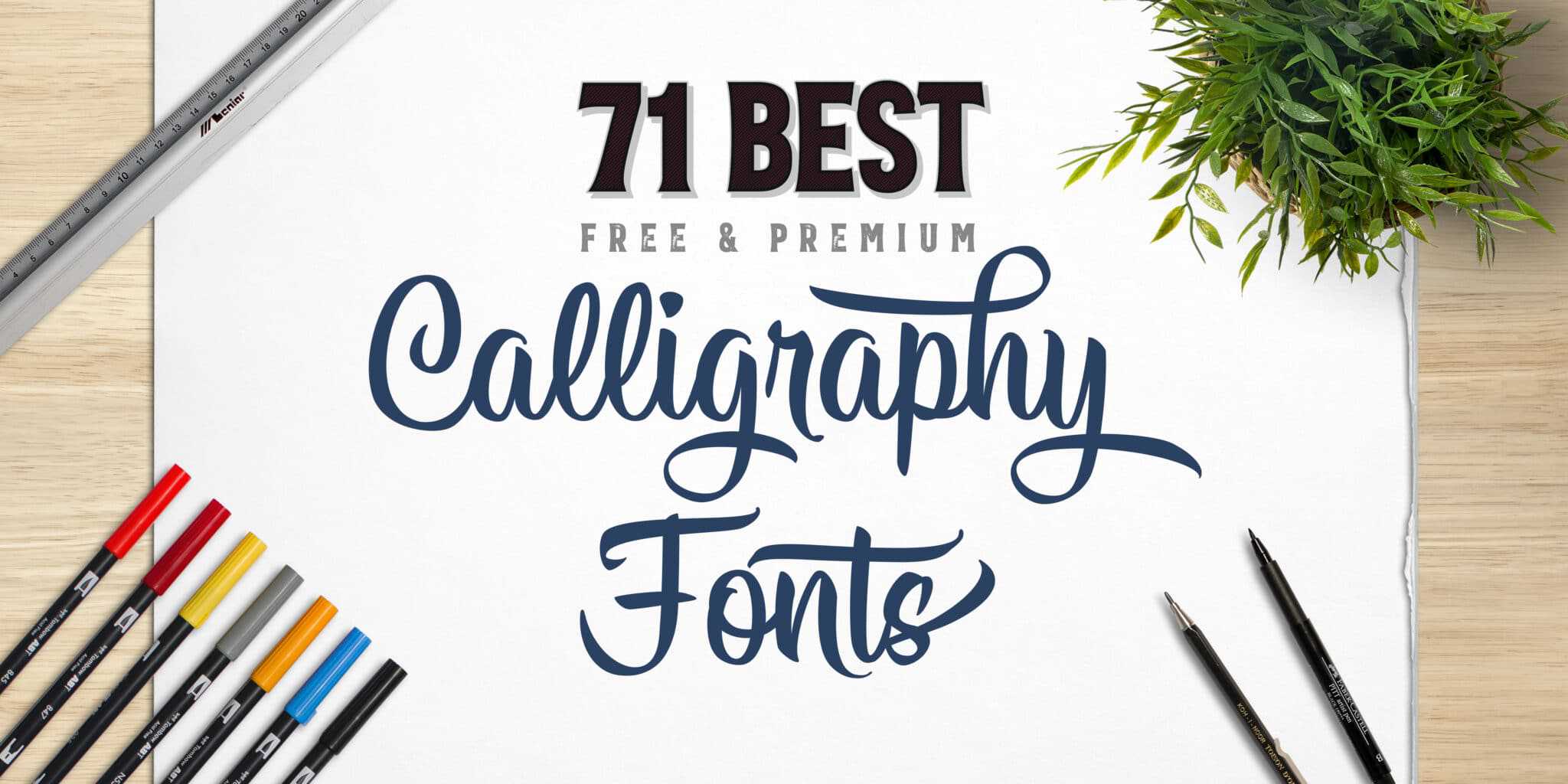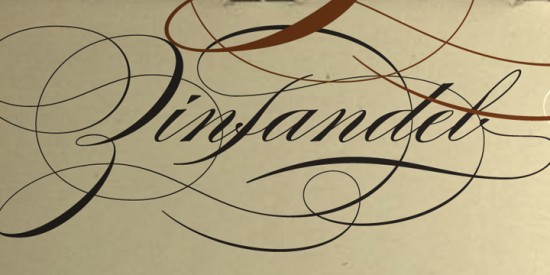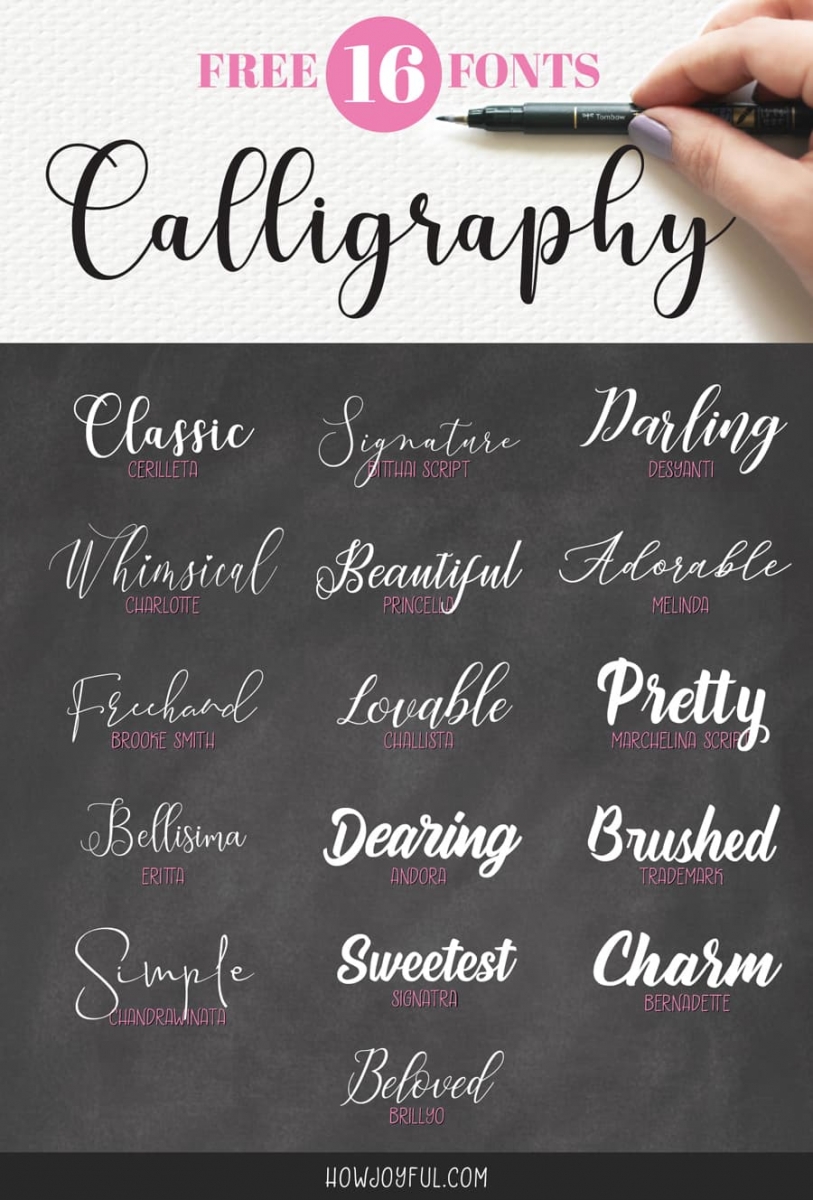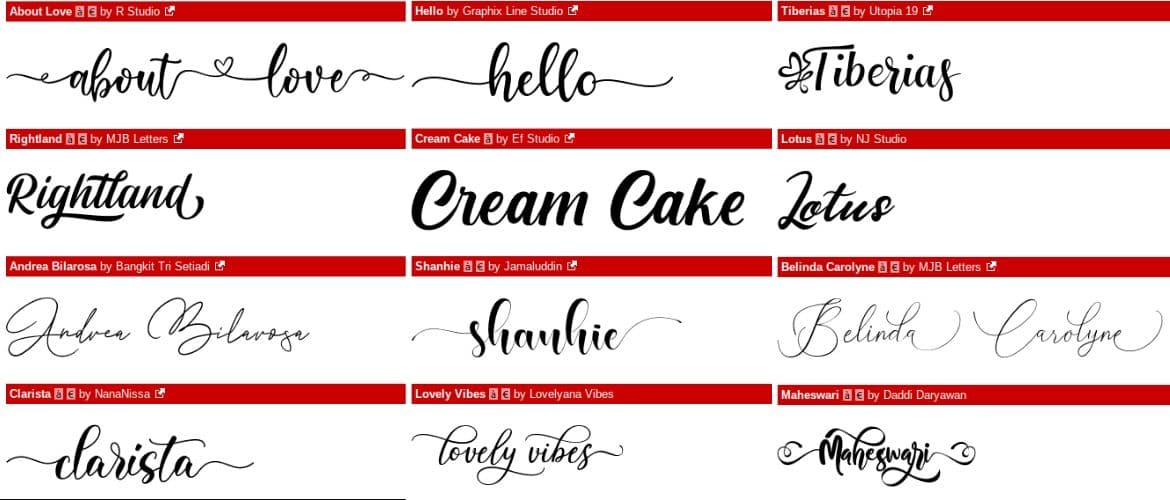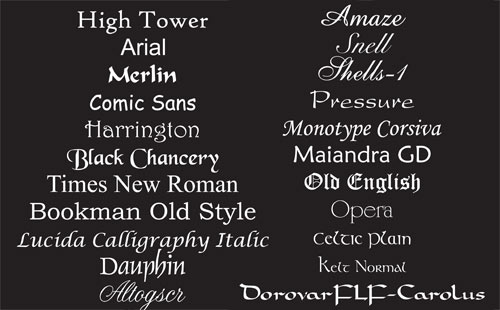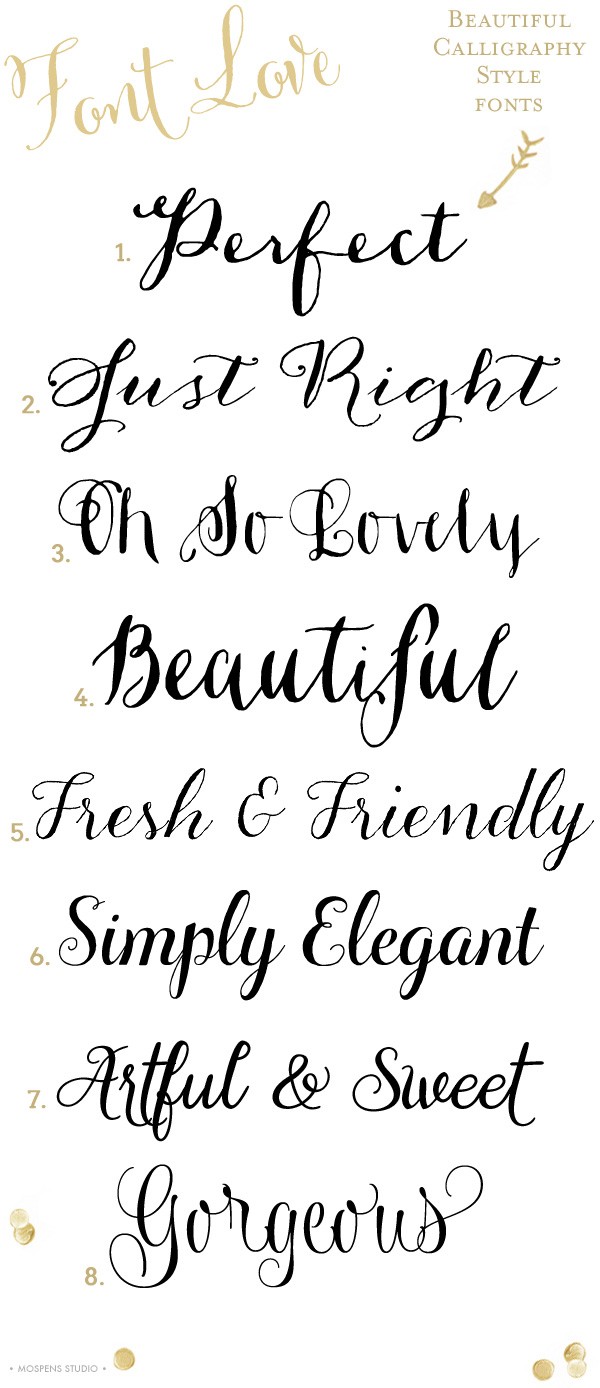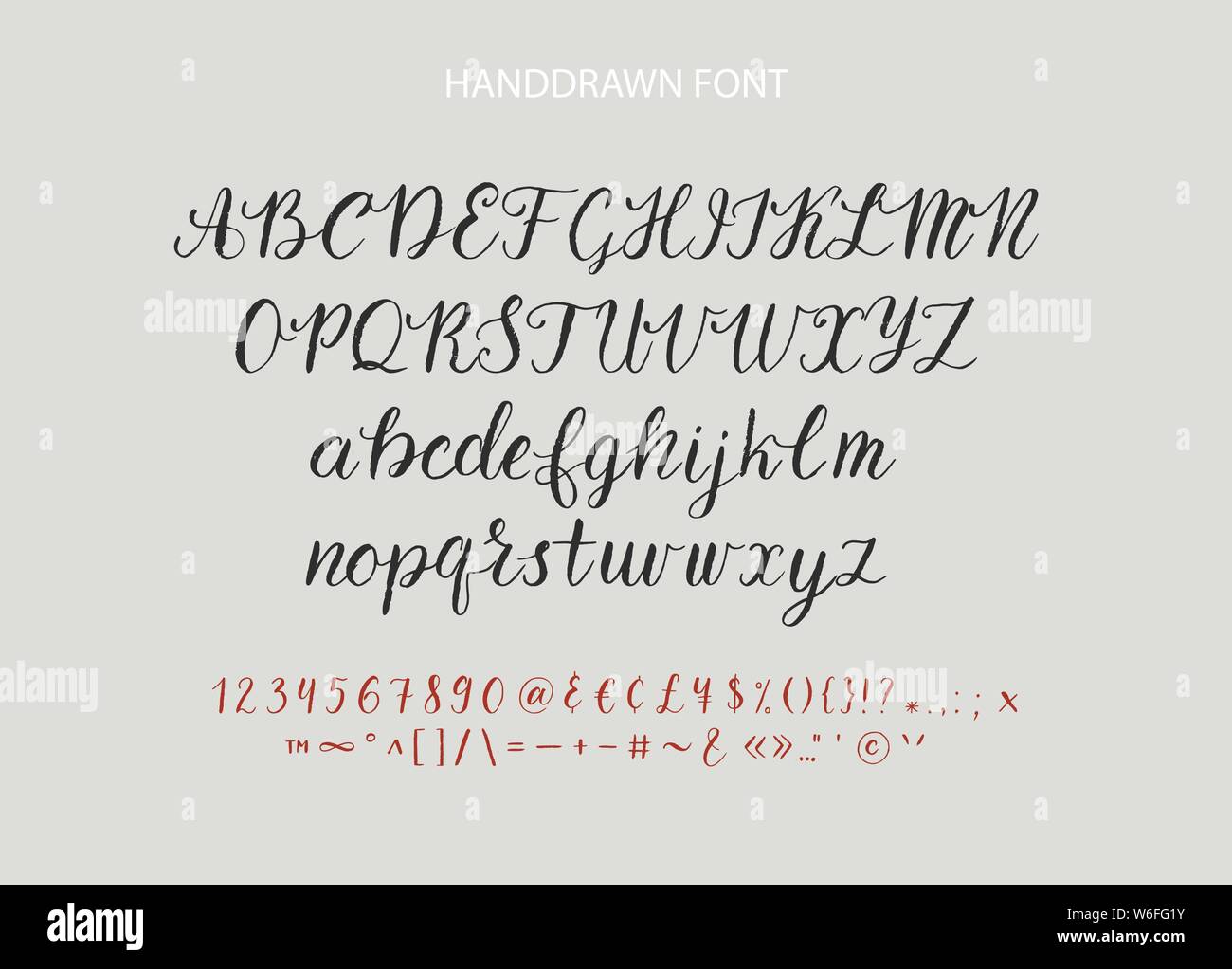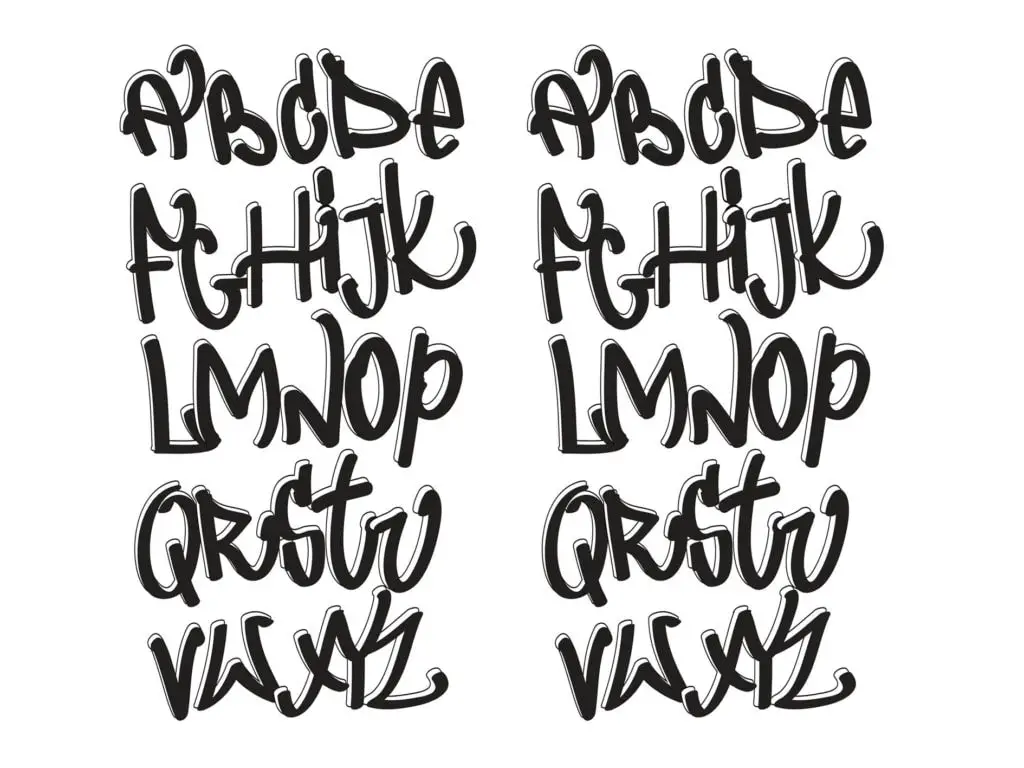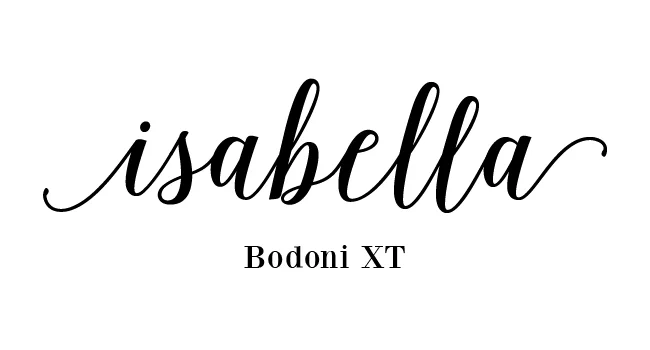
Nelson the scriptina pro is a beautiful font crafted to fit any design layout. They often look as if they were drawn with flat-tipped pens or brushes.
Rules govern the shape and execution of these letters similarly to a font.
Calligraphy different fonts styles. The height of calligraphy was reached in the middle age where monks developed the narrow writing style called gothic allowing more words to fit on a single line as paper was expensive at the time. Serifs or Sans Serif. Calligraphy fonts are types of computer files that can be used by various other programs to enable different styles of text in those programs.
Calligraphy is the design and creation of hand lettering with a brush or other writing tool. Lovers of beautiful calligraphy and type will especially appreciate this elegant font family. The main sub-styles are traditional calligraphy and modern calligraphy.
Graffiti Alphabet Letters Black White Graffiti Style Fancy. Burgues Script is a very famous font for over 100 years that inspired many penmanship schools. Modern calligraphy relies on certain principles of traditional calligraphy.
More styles are being created. With expertly balanced letters Encore is perfect for creating quick logos. Top 20 Most Beautiful Calligraphy Fonts 1.
Lamar pen is a stunning calligraphy font designed by Mirabeau Buonaparte Lamar is a fascinating style with words combining in an elegant and stylish way. Modern calligraphy is any calligraphy style that does not follow the fundamental rules of traditional calligraphy scripts such as Copperplate Spencerian Italic Blackletter etc. Calligraphy fonts are fonts that are specifically created to resemble styles of writing referred to as calligraphy and are.
Slovenia Calligraphy Font. It usually involves a nibbed pen or brush. Lamar Pen is a classic and stunning hand-writing calligraphy font style of Mirabeau Buonaparte Lamar.
Calligraphy fonts resemble elegant handwriting. Its the way old scribes used to get their ink to flow so they could start writing a letter. When choosing a calligraphy style or computer font youve probably seen a choice of picking a style with a serif or sans serif.
This modern calligraphy font is a beautiful choice. Swashes and stylish alternates are often a big part of calligraphy fonts. LHF Encore lends itself to designs requiring a formal or professional appearance.
Calligraphy fonts are widely used in wedding event invitations original logo design religious art films TV etc. All fonts can be written with the traditional quill needlepoint pen and monoline gel or felt pens. The writing is readable but is usually extravagant and embellished with flourishes.
Estylle Madison Calligraphy Font. That refers to the beginning and ending of the letters. There are a number of different fonts typically available in many computer programs such as Times New Roman and Courier.